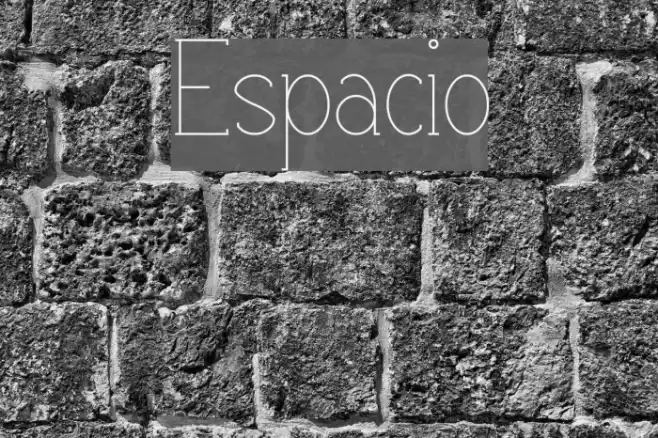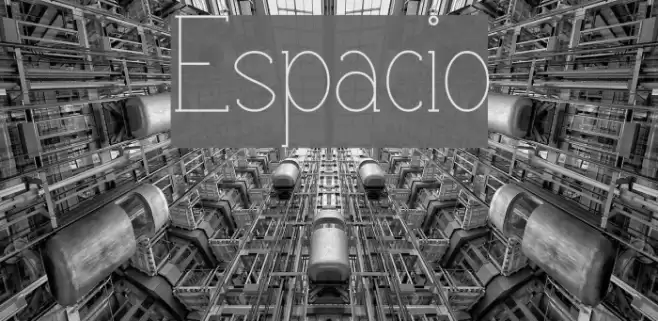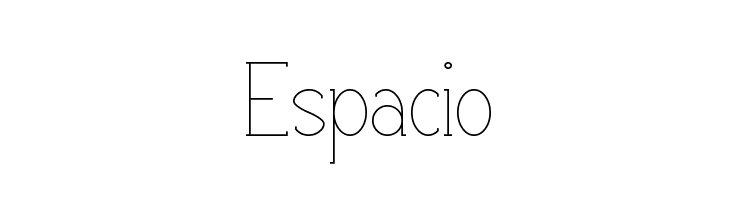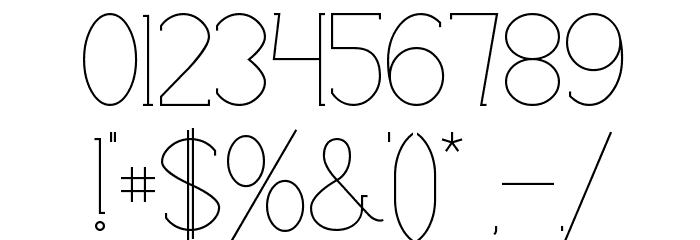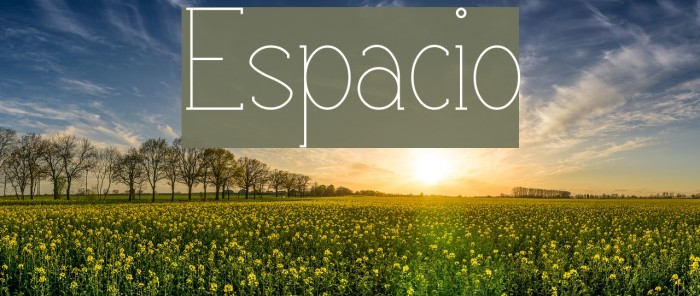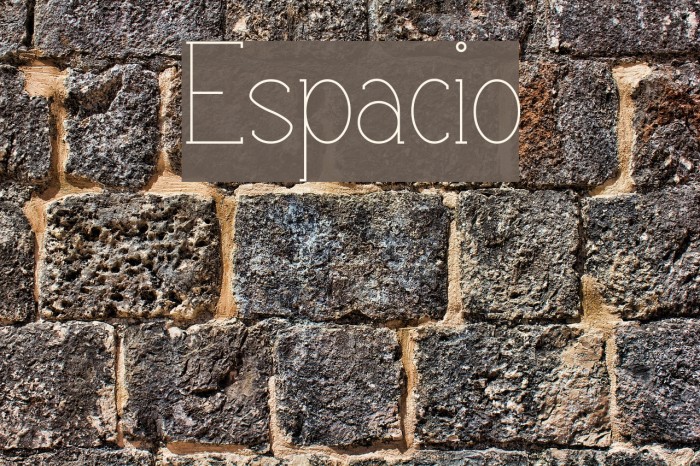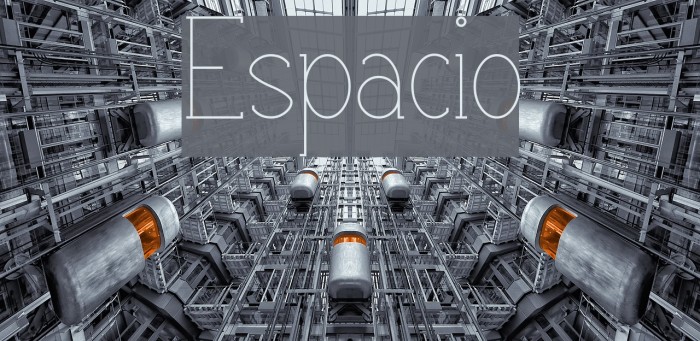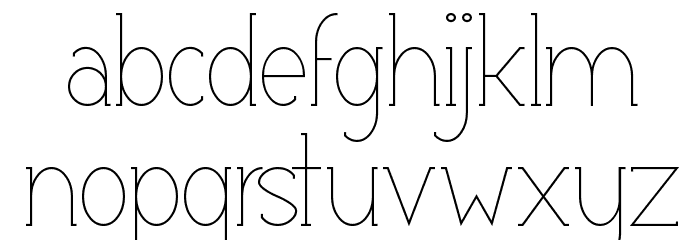
Espacio Font
Espacio Description
This font features a clean and modern design with thin, uniform strokes that give it a sleek and elegant appearance. The characters are well-proportioned, with a geometric influence that is evident in the consistent line thickness and minimalistic style. The uppercase letters are tall and commanding, while the lowercase letters maintain a harmonious balance with their slightly rounded forms. The numerals are clear and legible, making them suitable for various applications. Special characters are included, maintaining the font's cohesive aesthetic. Overall, this font exudes a contemporary and sophisticated vibe, making it versatile for a range of design projects.
A modern, thin-stroked font with a geometric and elegant design from Uncategorized fonts.
- Proposed Projects: Ideal for branding, editorial design, minimalist posters, and modern web design.